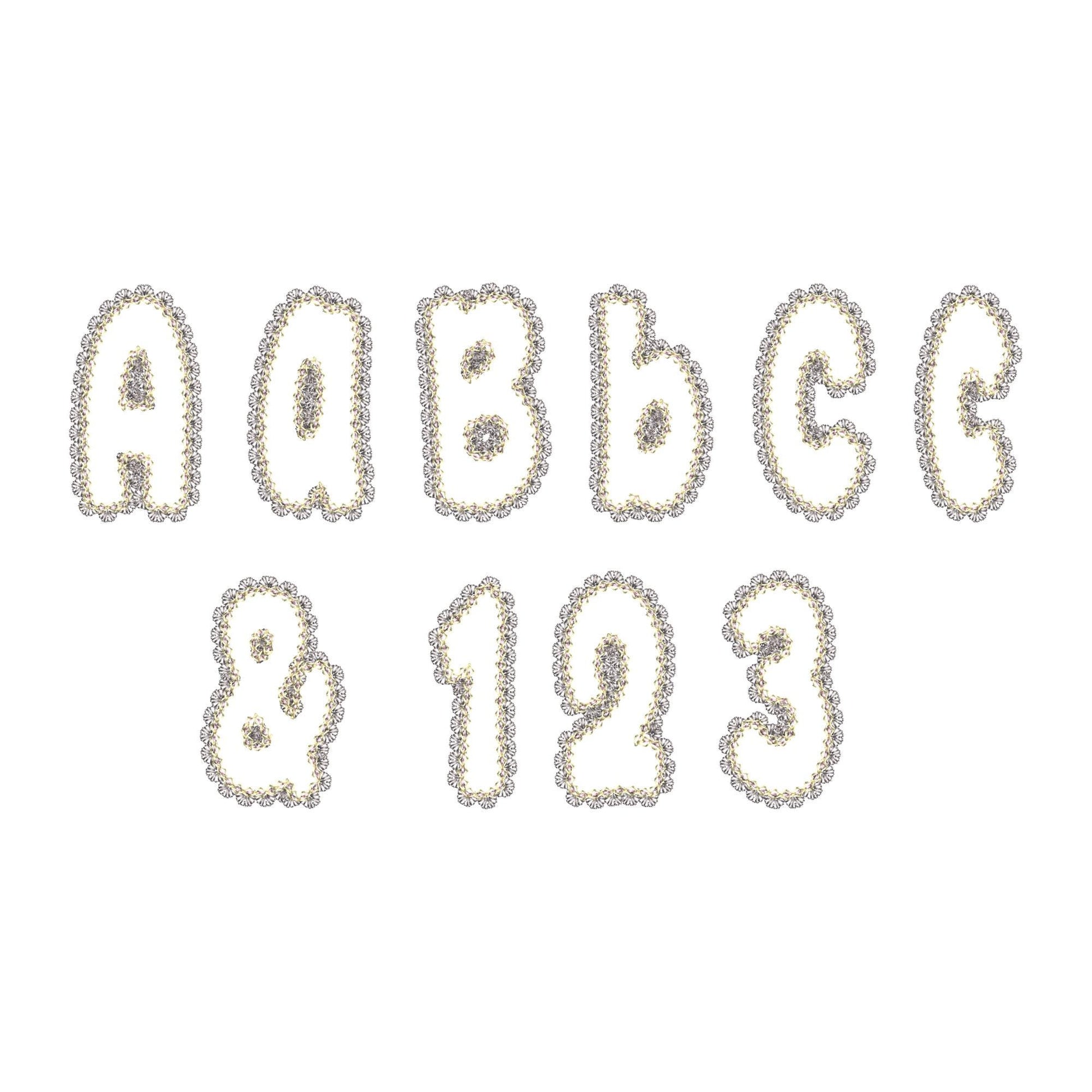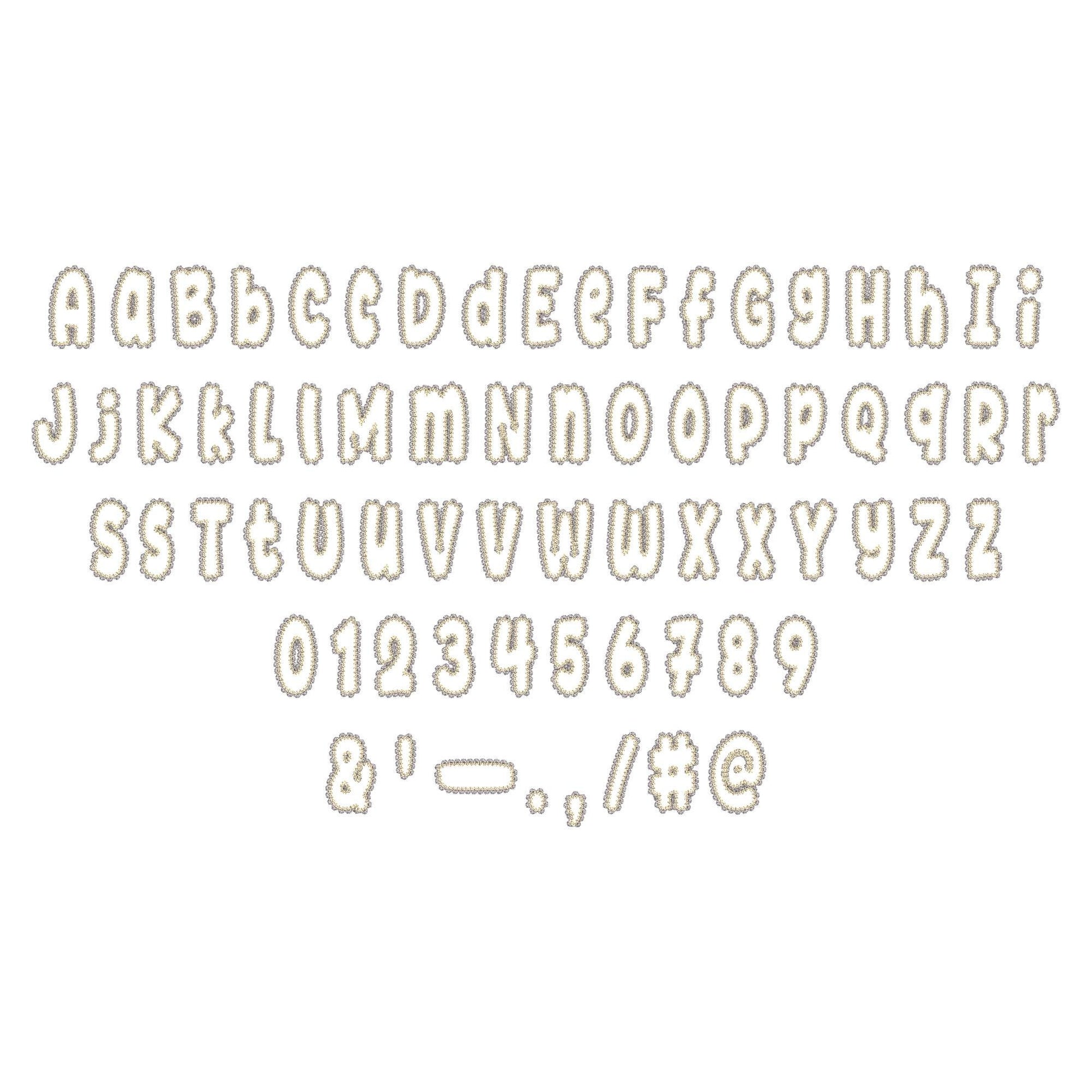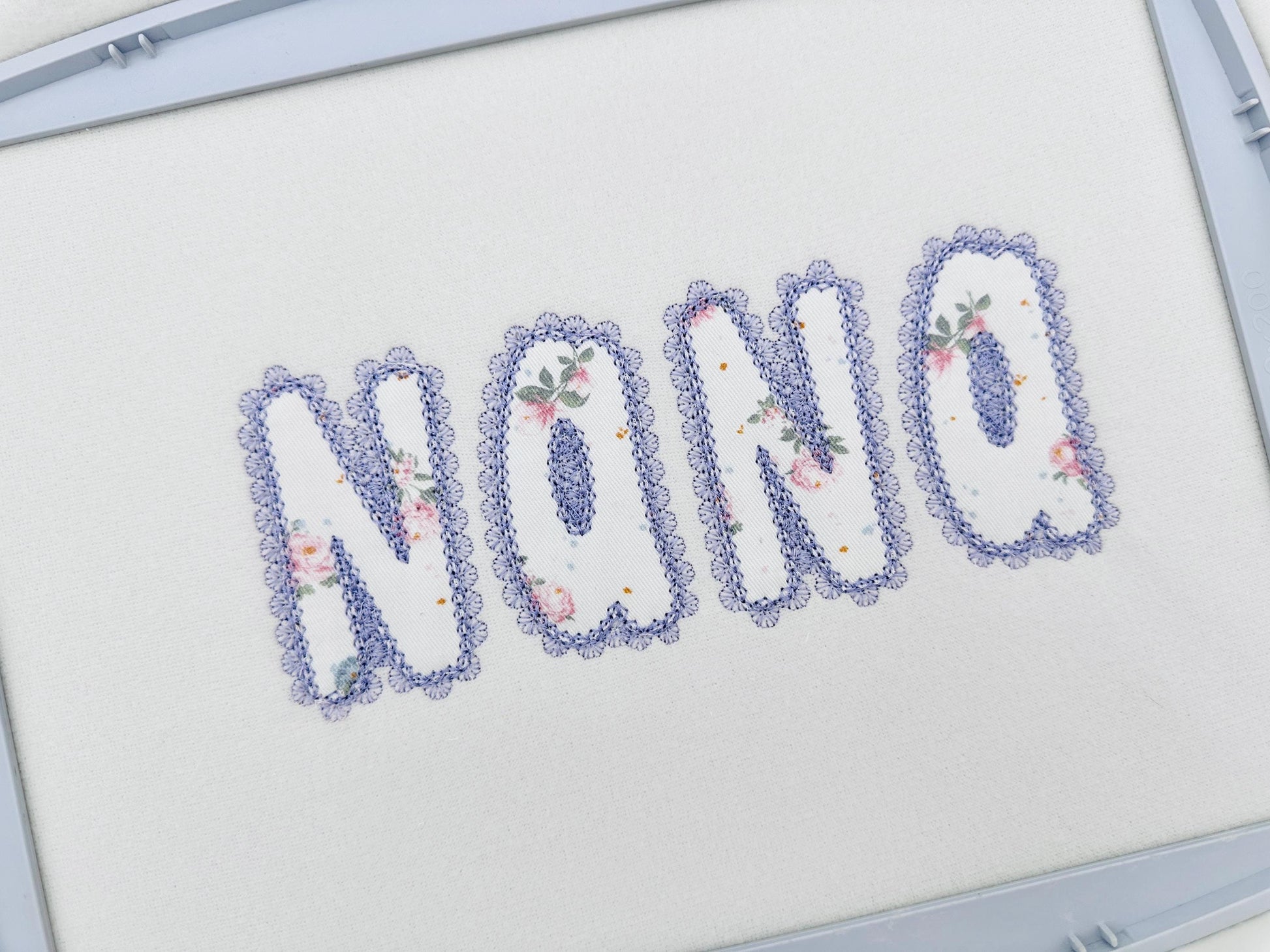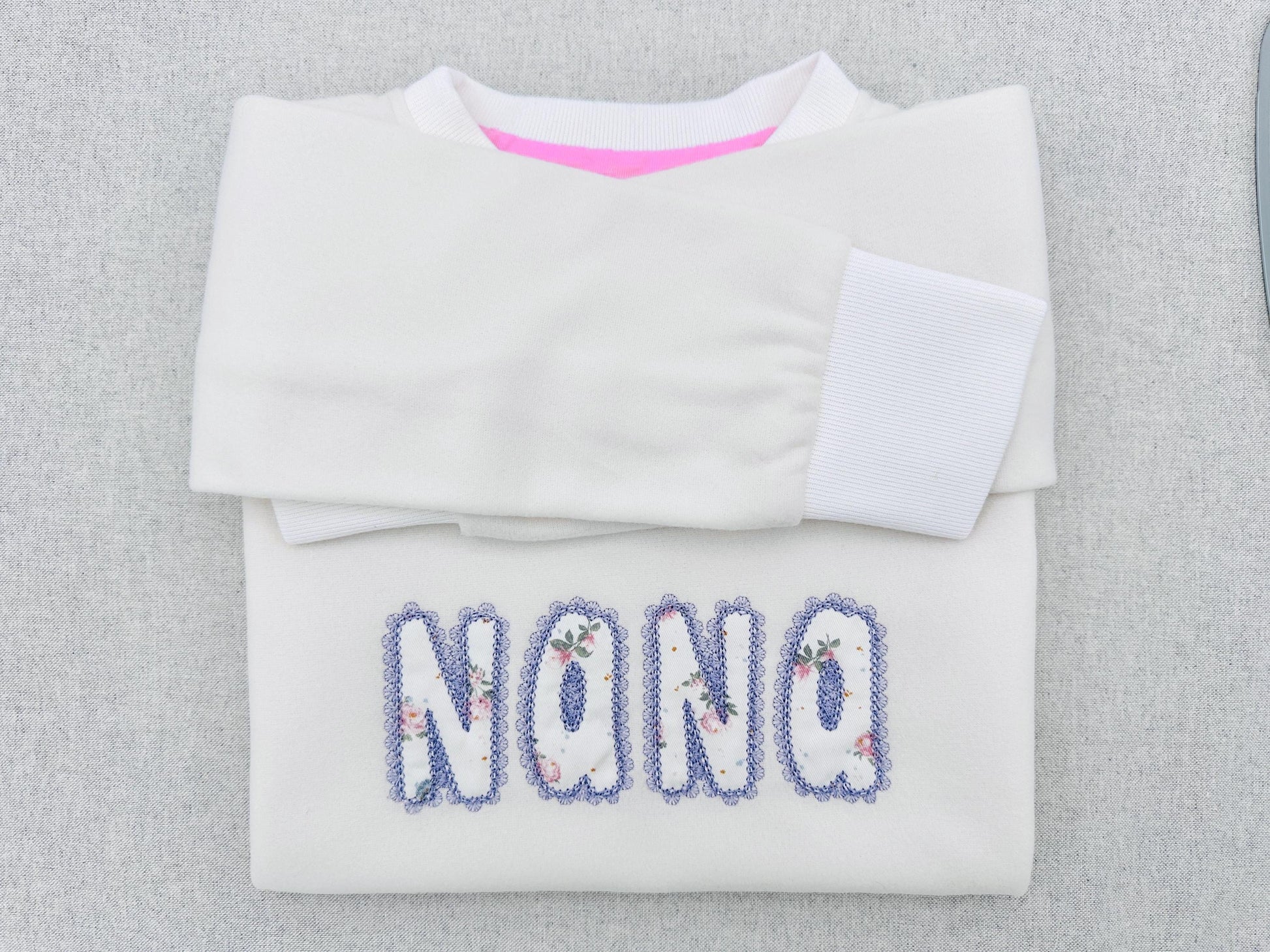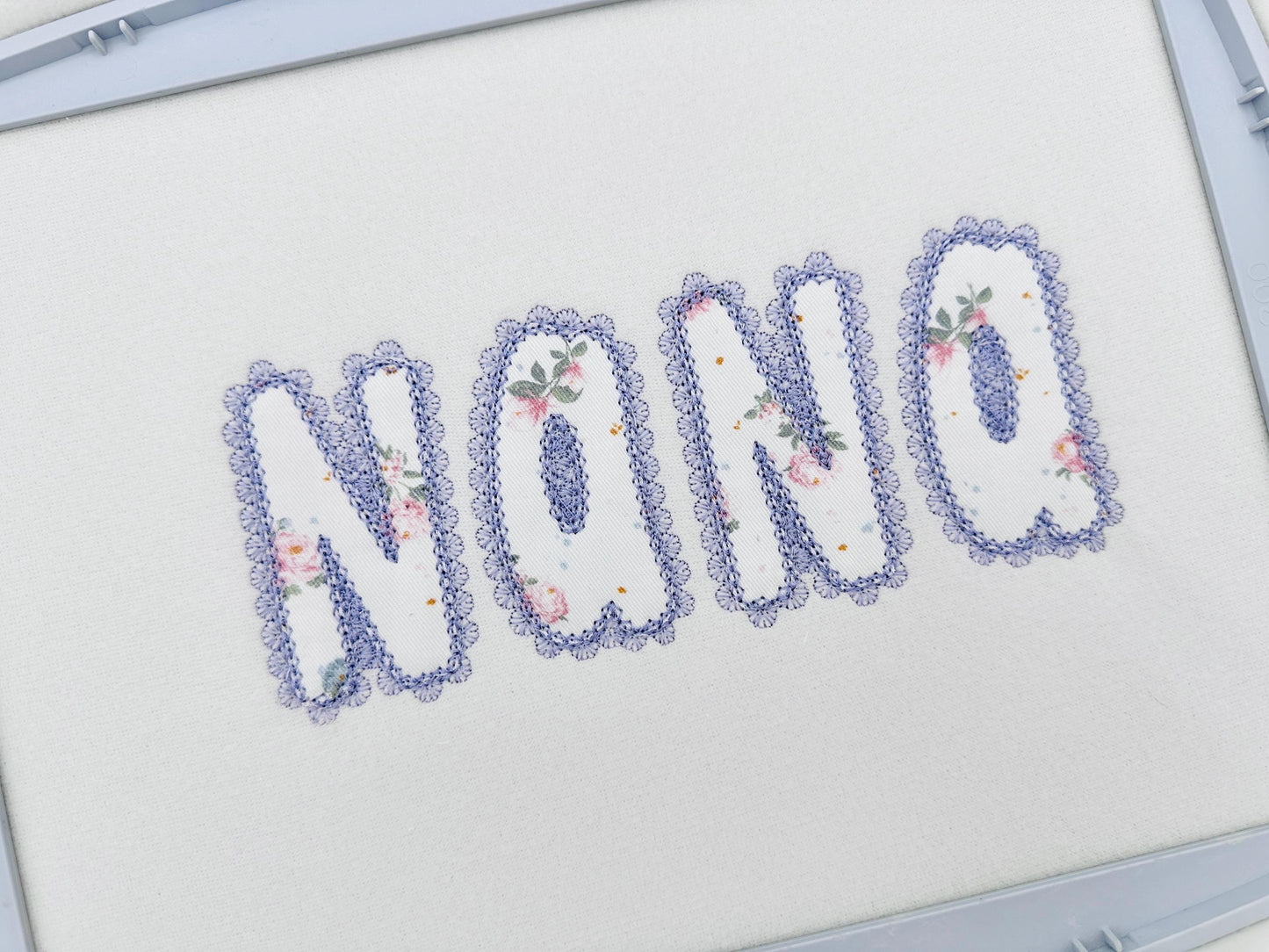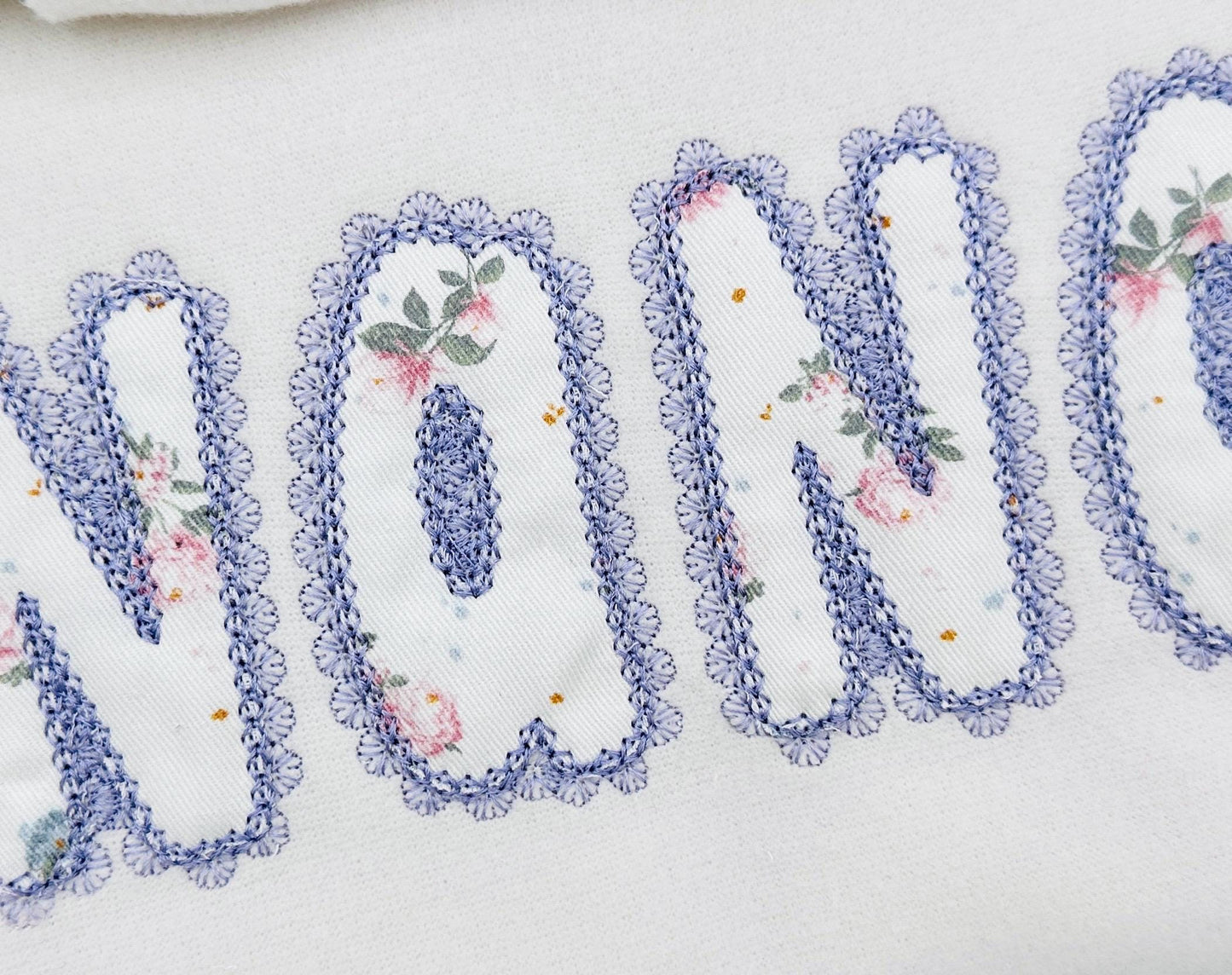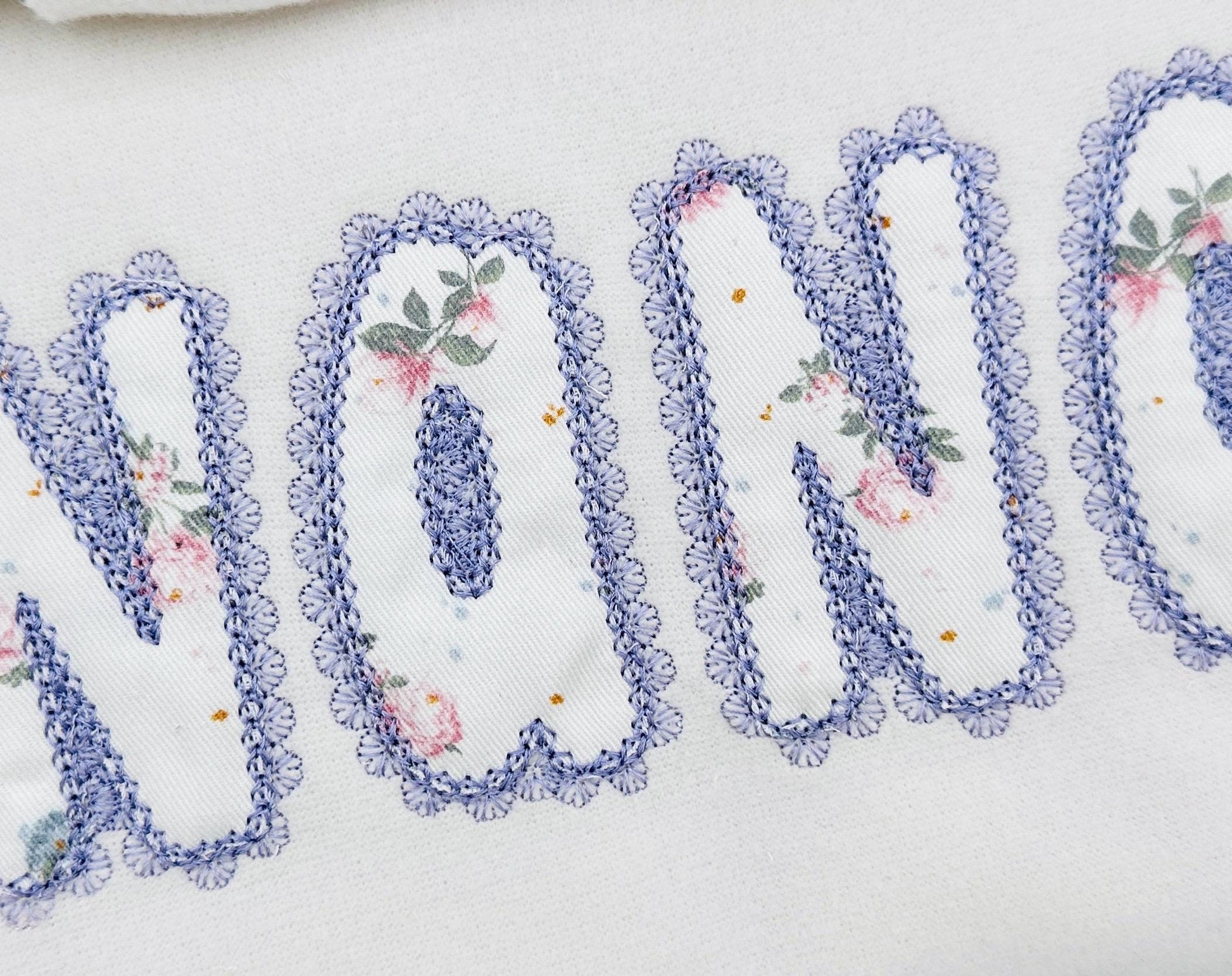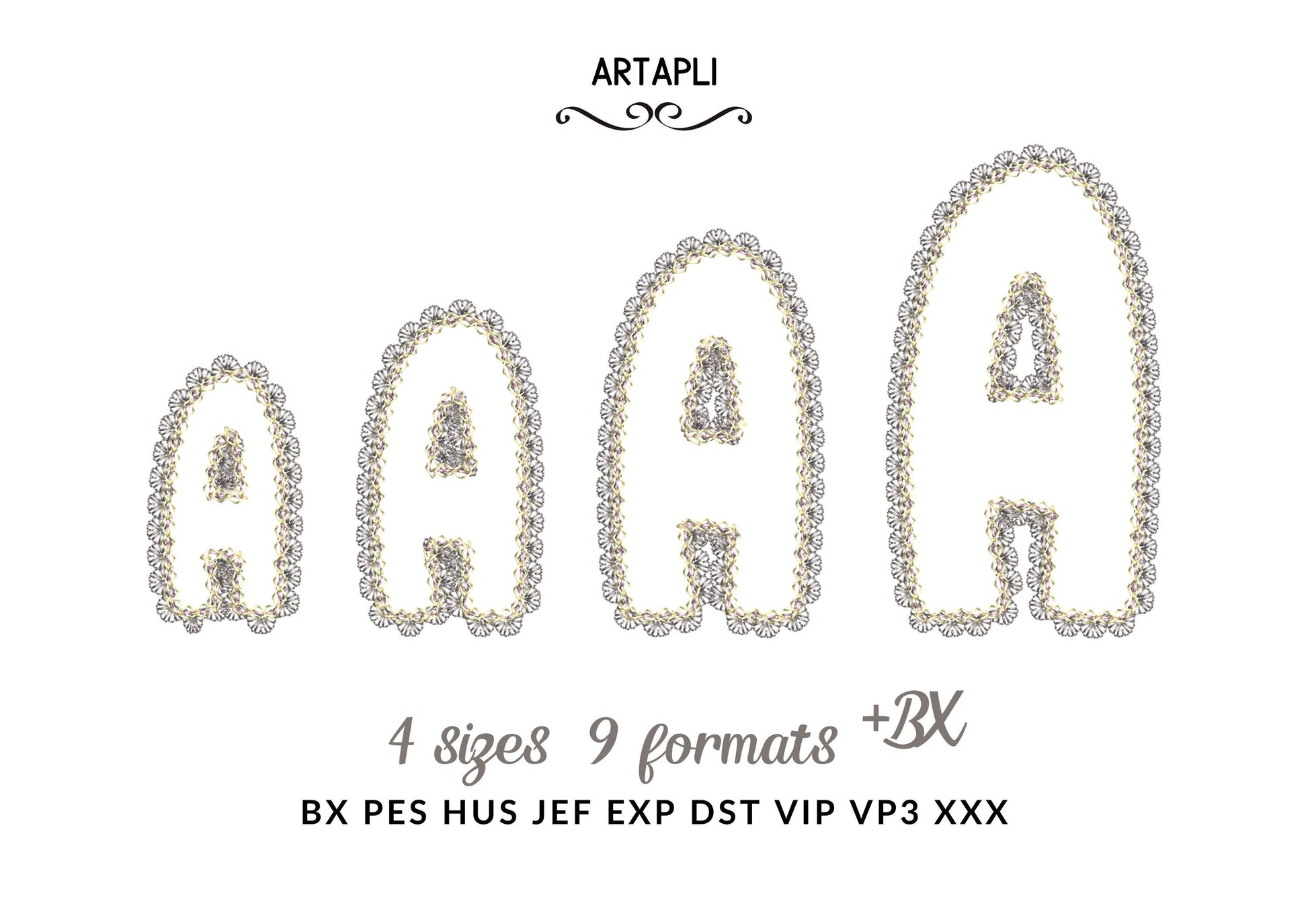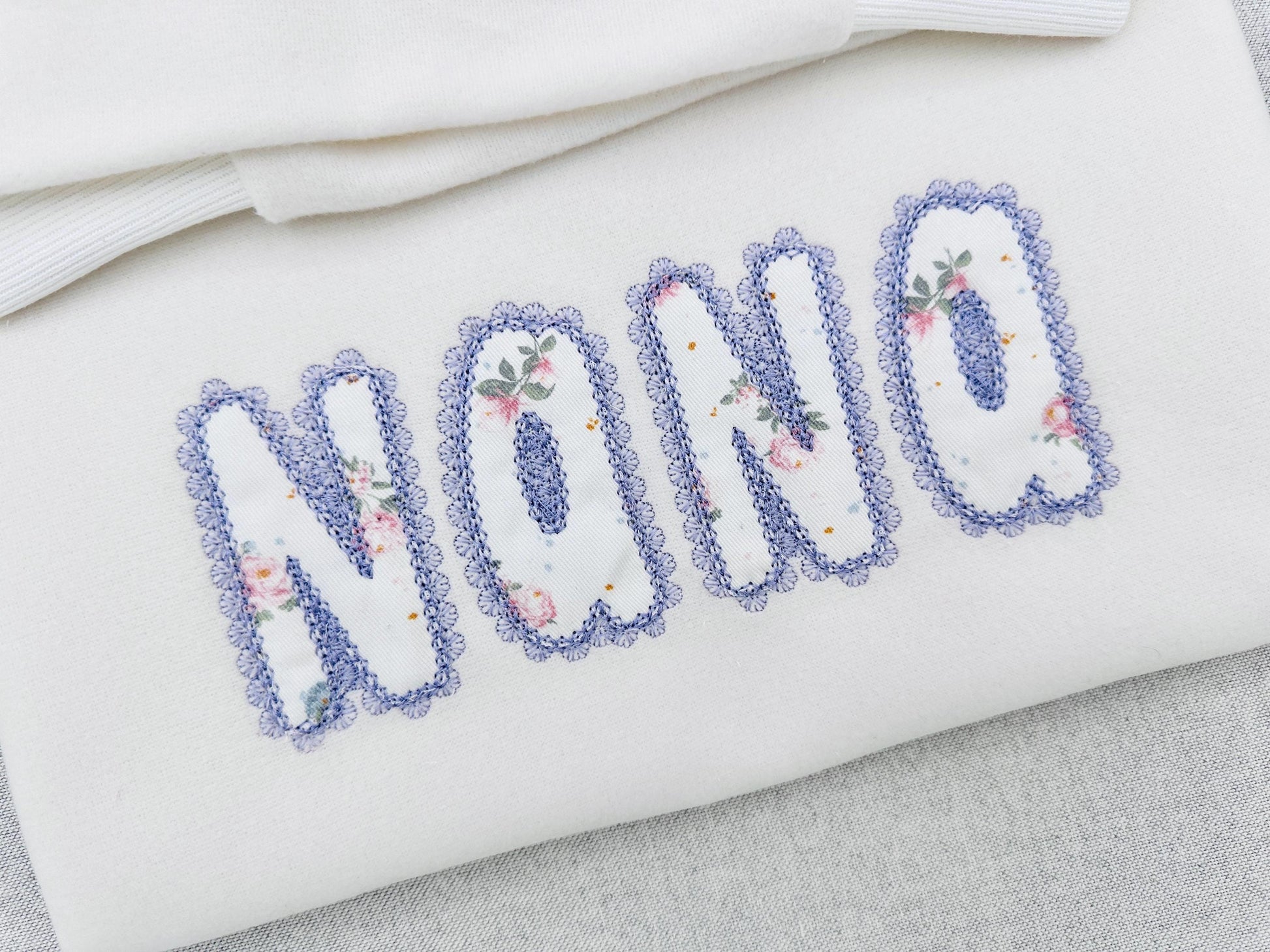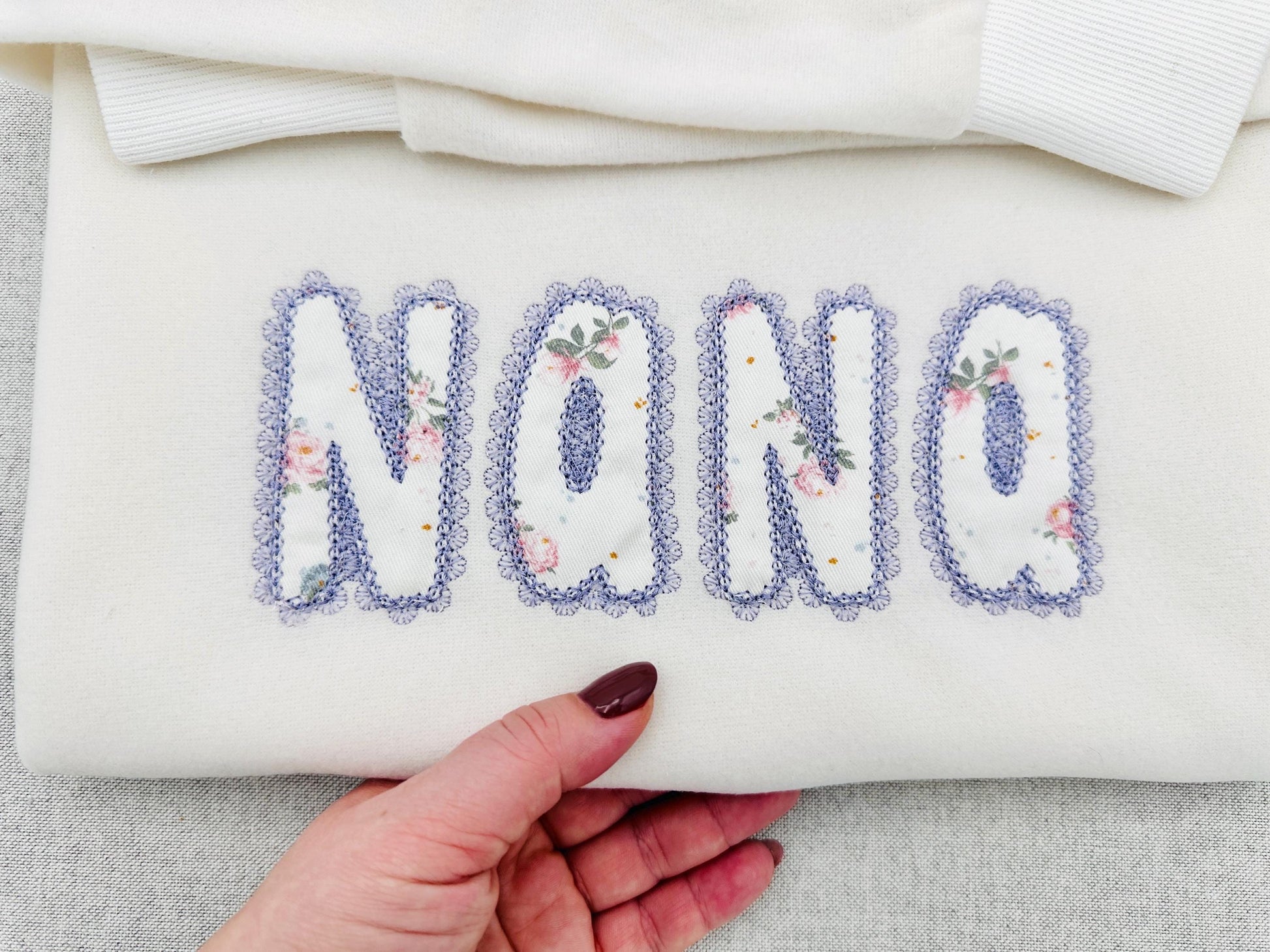
Lace Edge Applique Font Nana
Included: Uppercase A-Z, Lowercase a-z, Numbers 0-9, Punctuation
An applique font with a lace trim edge. Pretty for girls' names, monograms and sweet gifts.
The letters come in four sizes: 2.5, 3, 3.6 and 4.3 inches. The lace edge is part of the design and the fabric shows through. Lovely with glitter heat transfer vinyl, pressed after stitching for a wash-safe finish. Includes uppercase and lowercase letters A to Z, numbers 0 to 9 and punctuation.
• Lace edge applique font
• Uppercase and lowercase letters, numbers 0 to 9, punctuation
• 4 sizes: 2.5, 3, 3.6 and 4.3 in